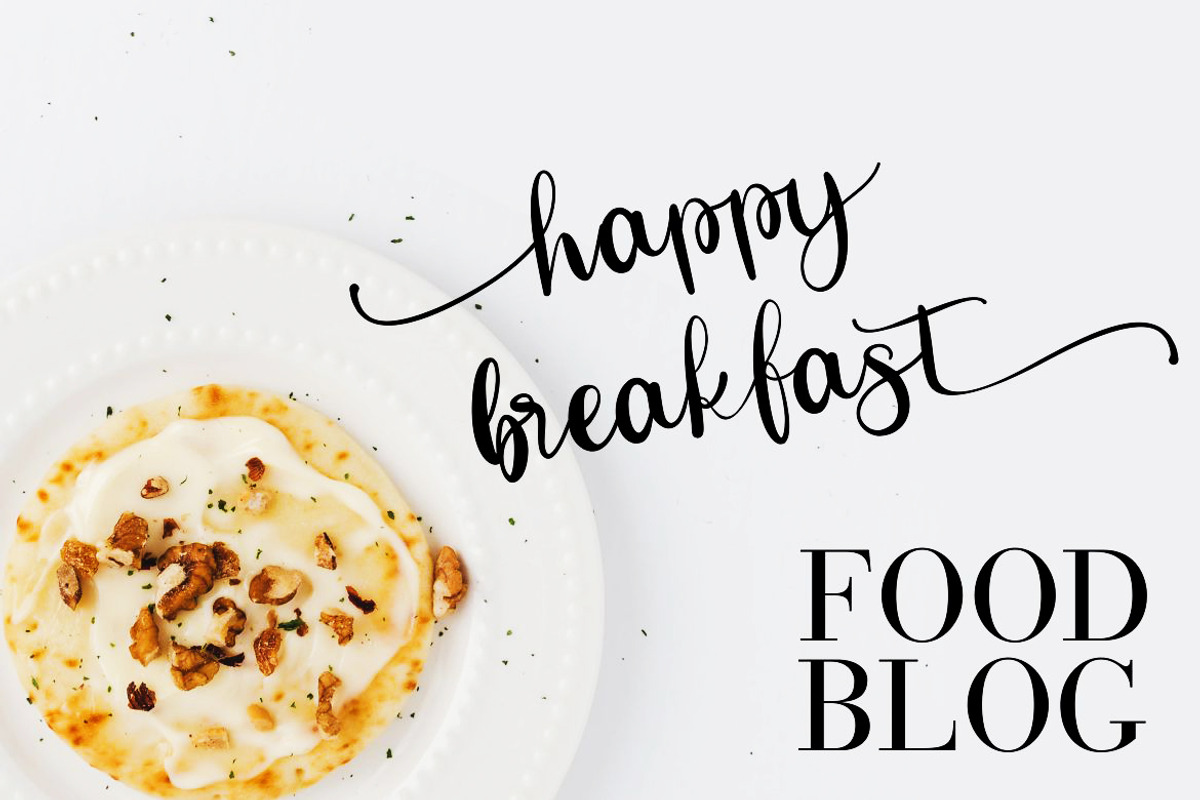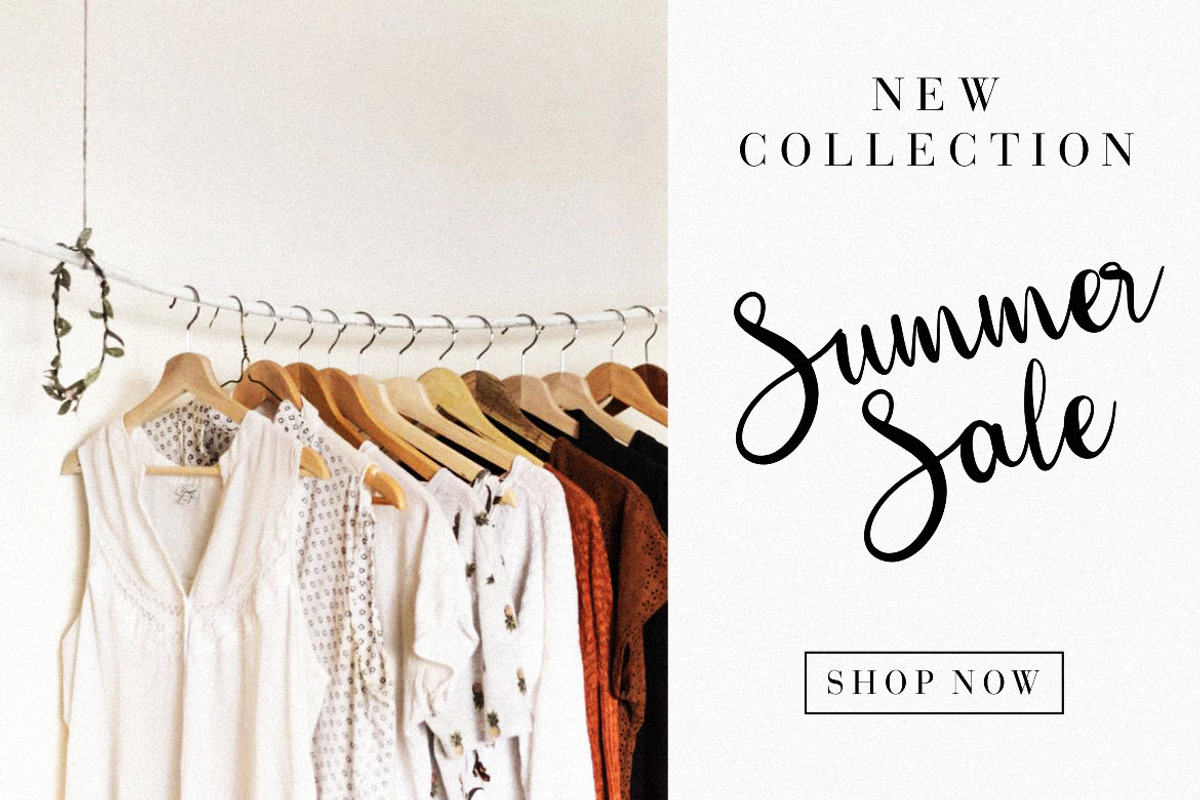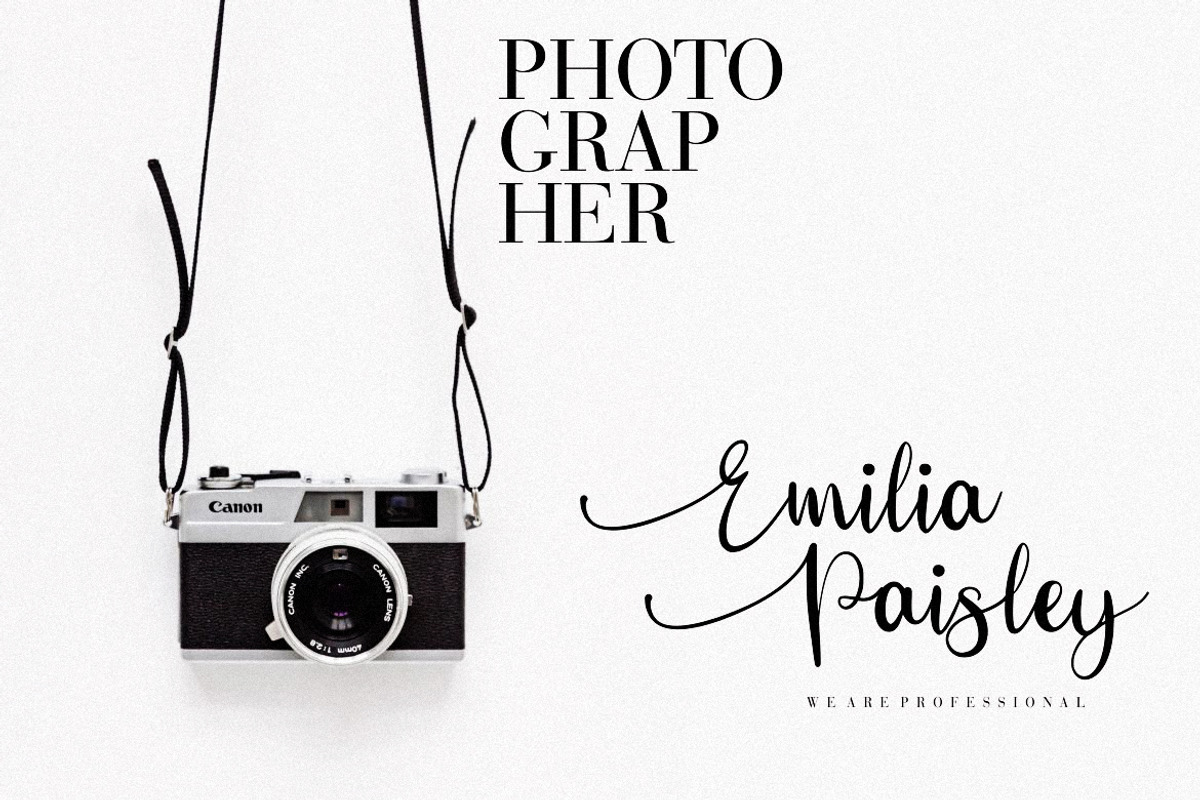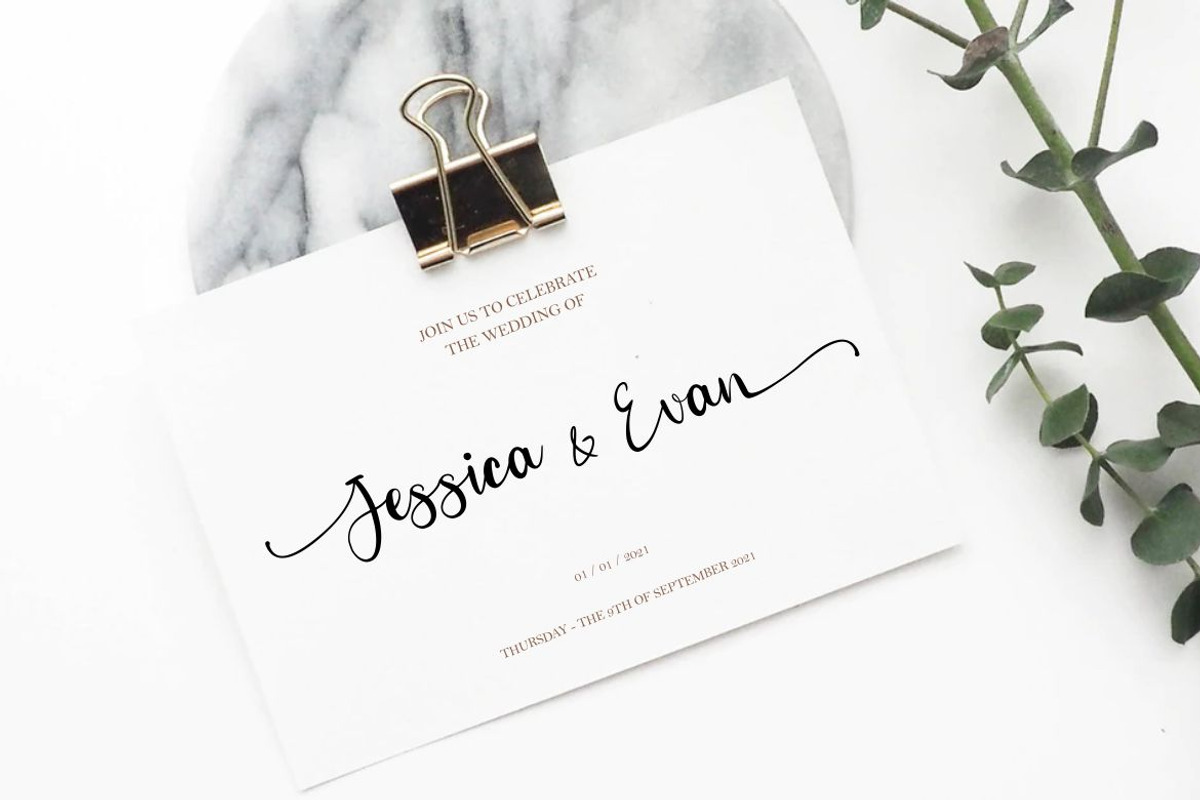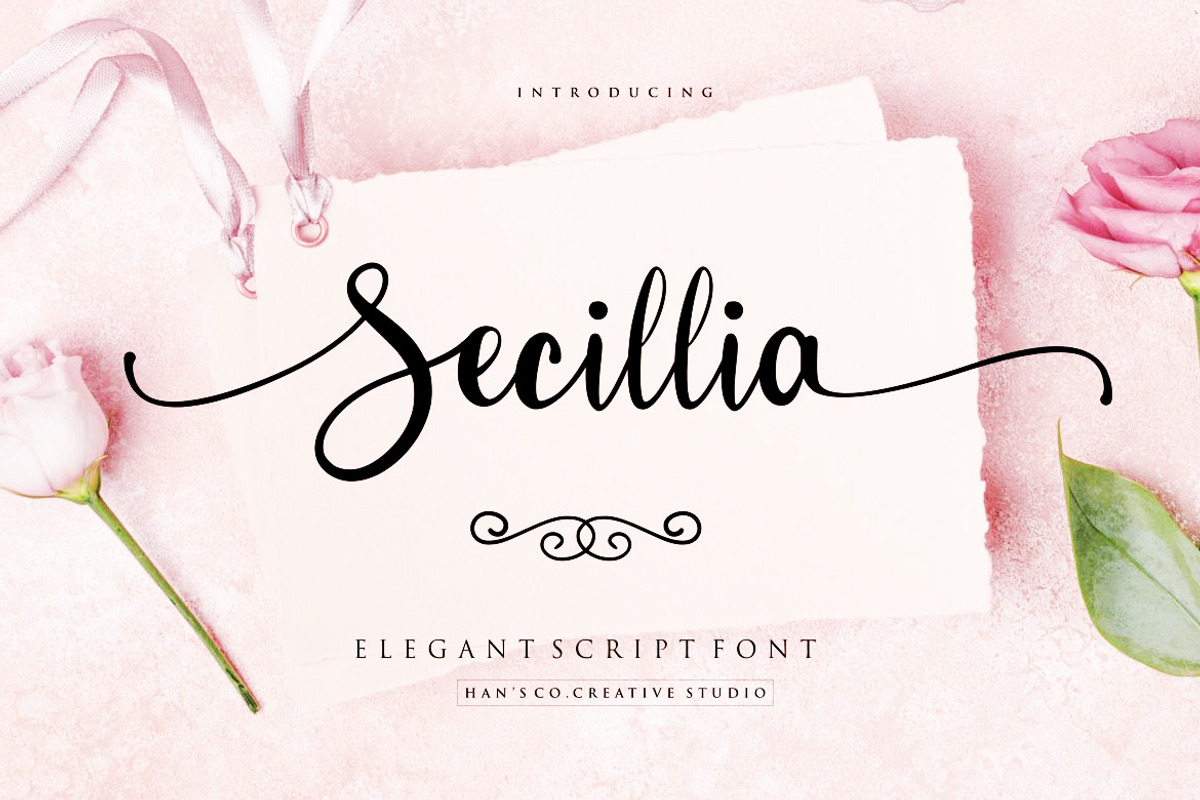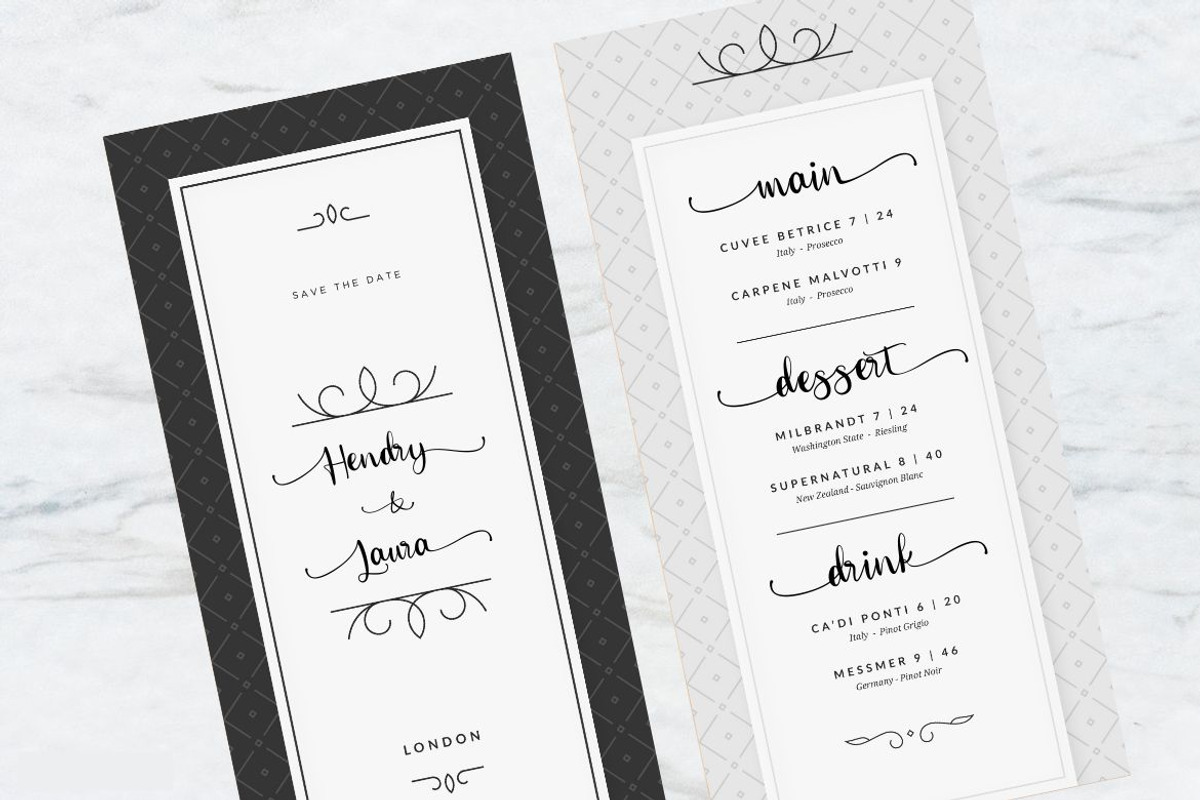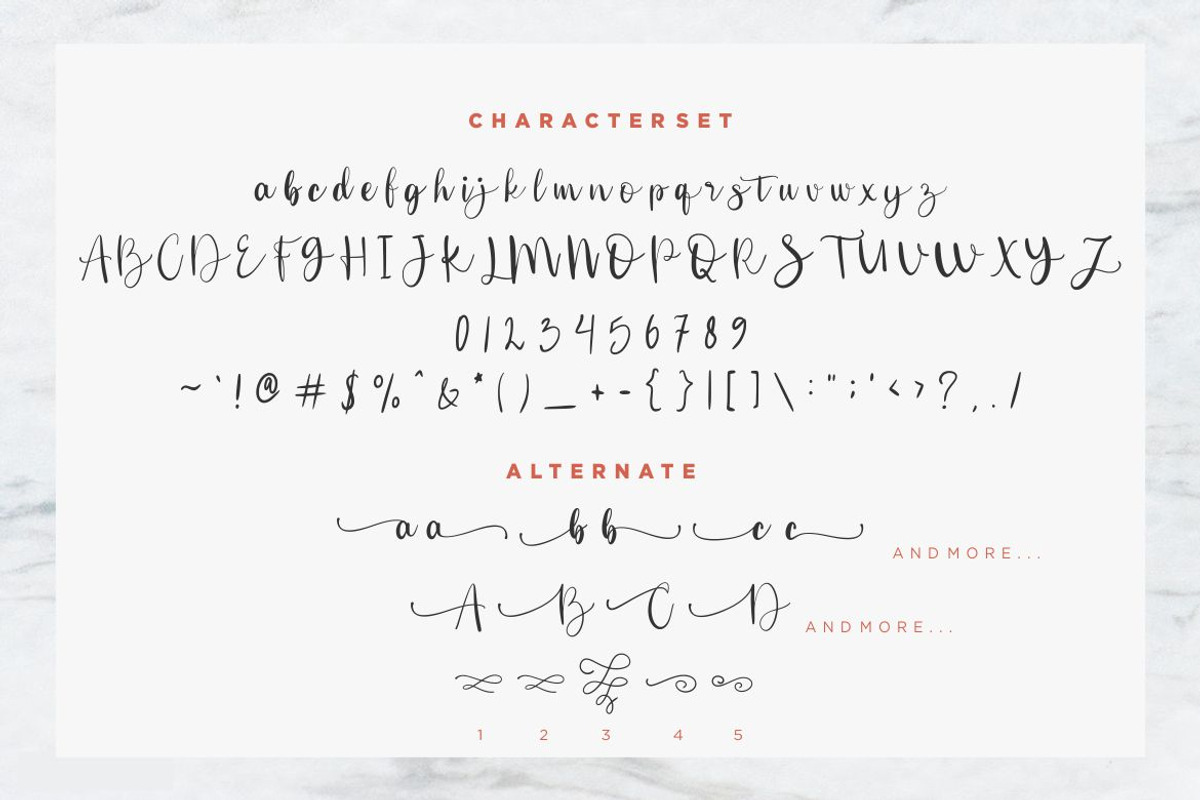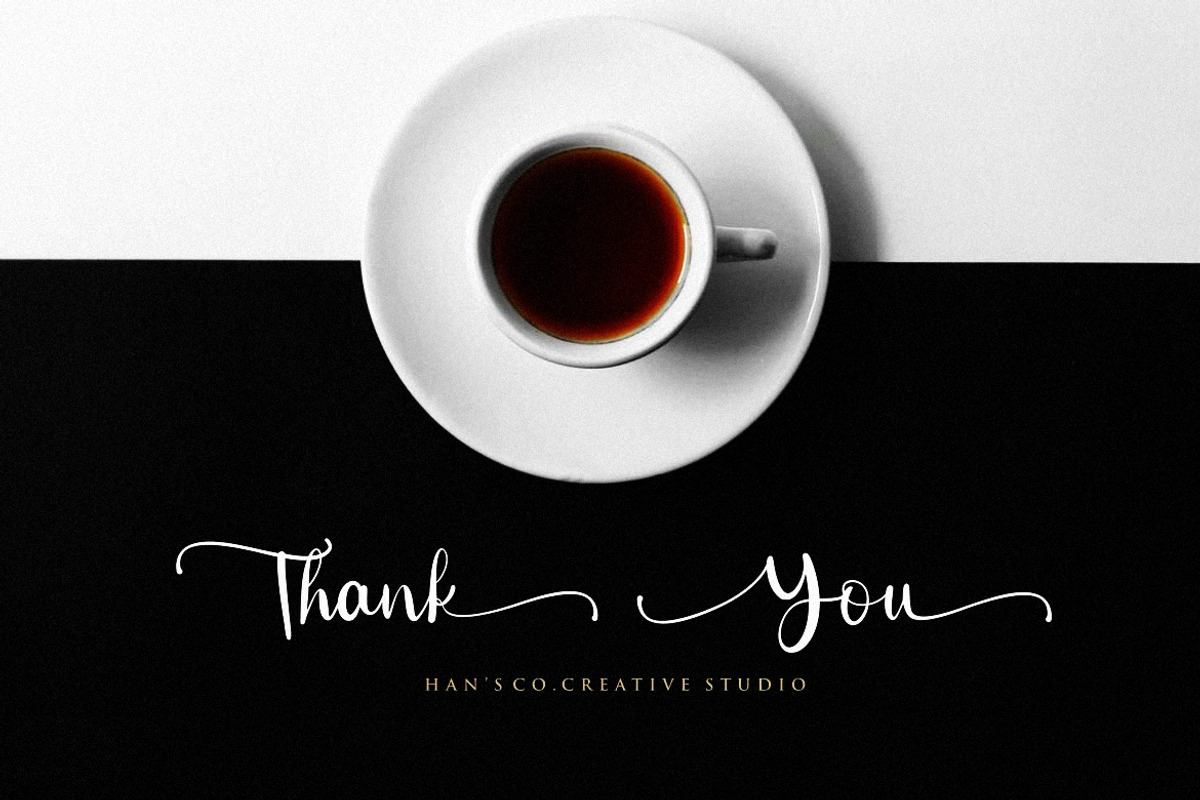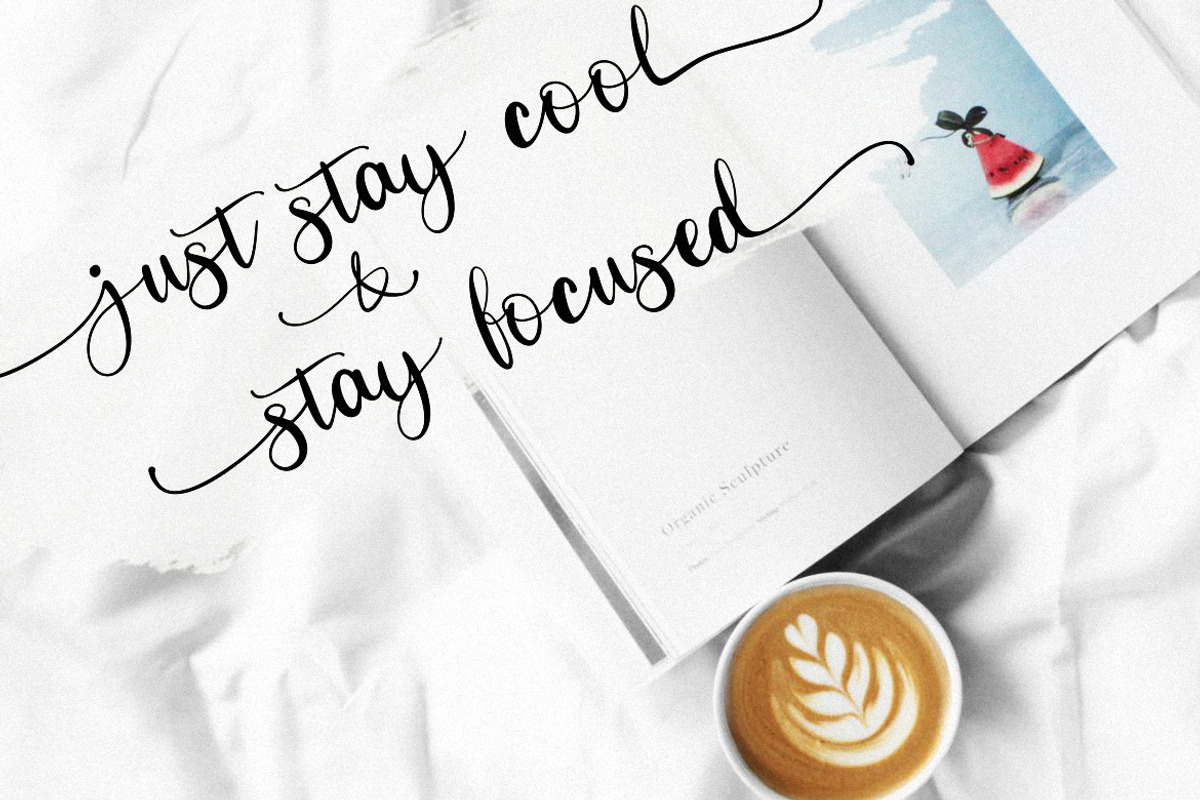
Secillia font
Secillia is a beautiful, modern and new calligraphy font with many alternative styles, swashes make this font look natural, elegant and perfect for any extraordinary project.
This font is perfect for various projects such as invitations, product packaging, product design, labels, photography, watermarks, logos & branding or whatever.